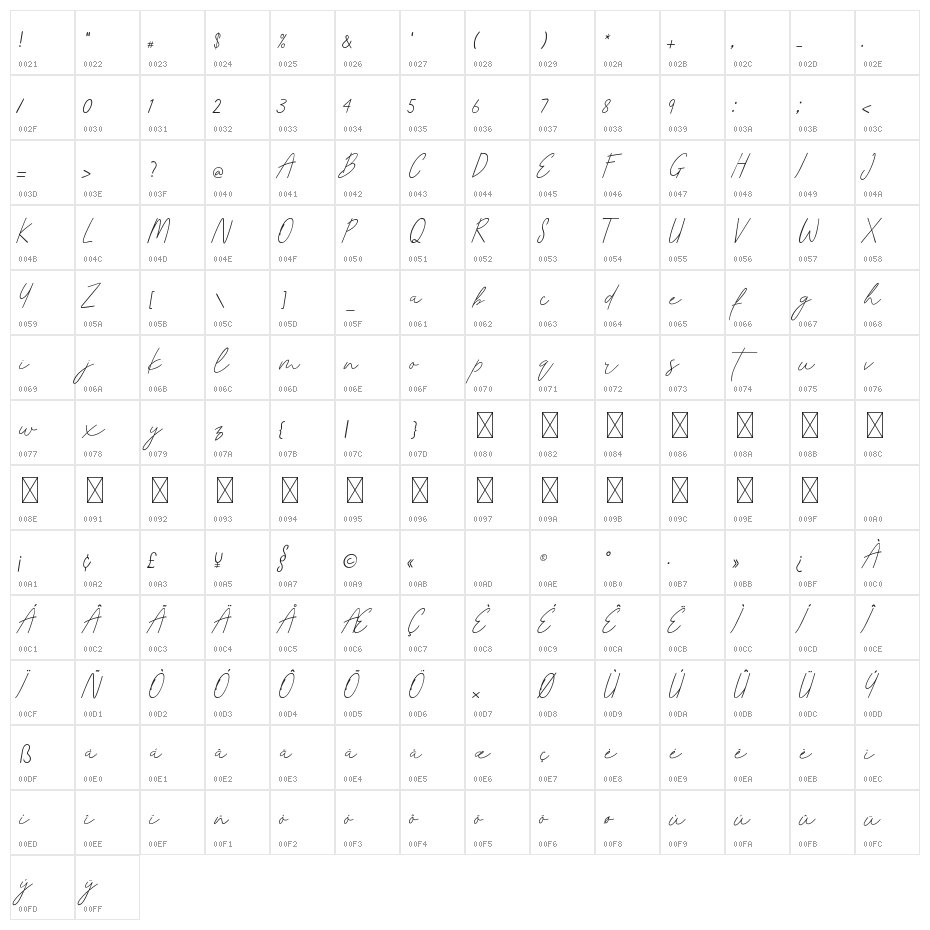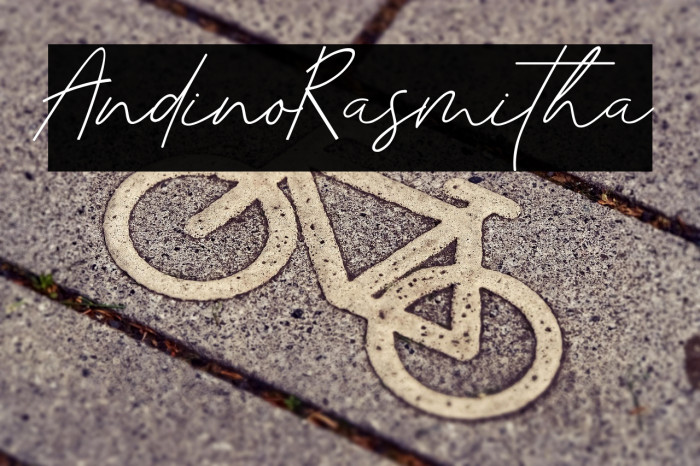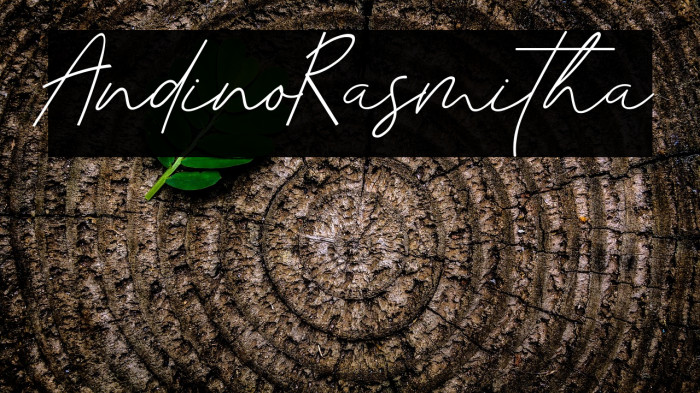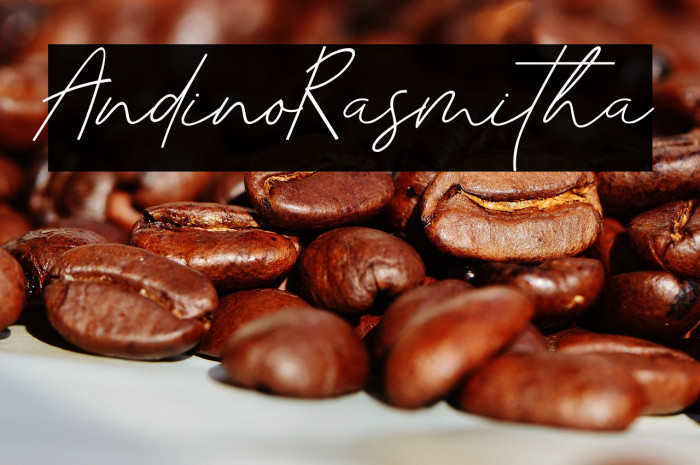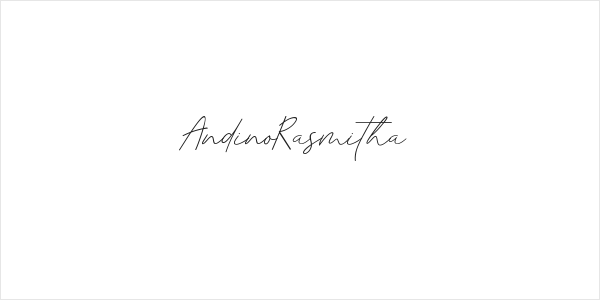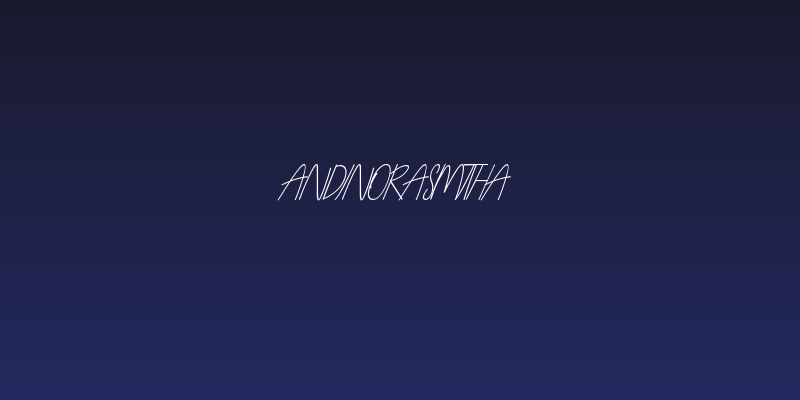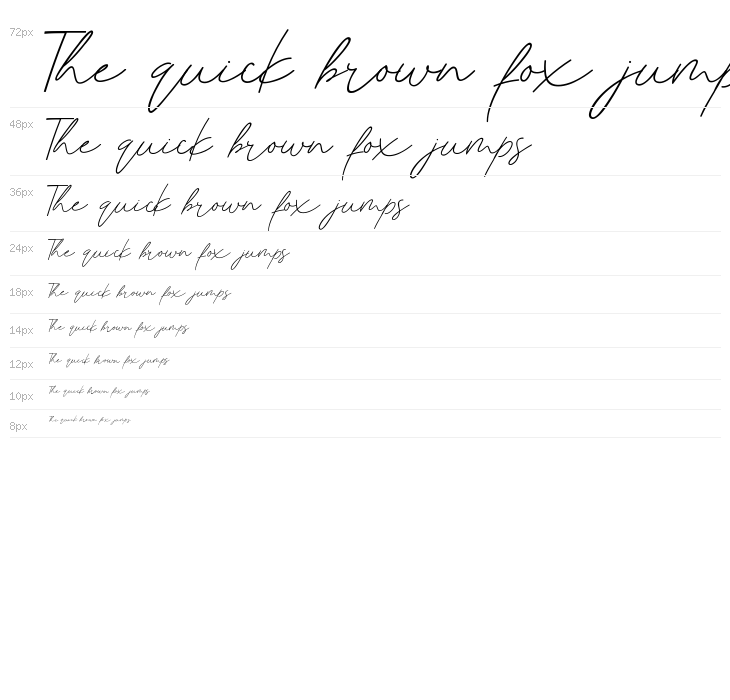
AndinoRasmitha Font
AndinoRasmitha Description
This font exhibits a flowing, cursive style with elegant, elongated strokes. The uppercase letters are tall and slender, while the lowercase letters maintain a consistent, graceful flow. The numerals are distinct yet harmonize well with the overall script style. Special characters are integrated seamlessly, enhancing the font's versatility. The design is reminiscent of handwritten calligraphy, offering a personal and artistic touch. Its delicate lines and smooth curves make it suitable for projects requiring a sophisticated and refined appearance.
| Overall Style | Elegant, Handwritten |
| Proposed Projects | Ideal for wedding invitations, greeting cards, personal branding, and elegant packaging designs. |